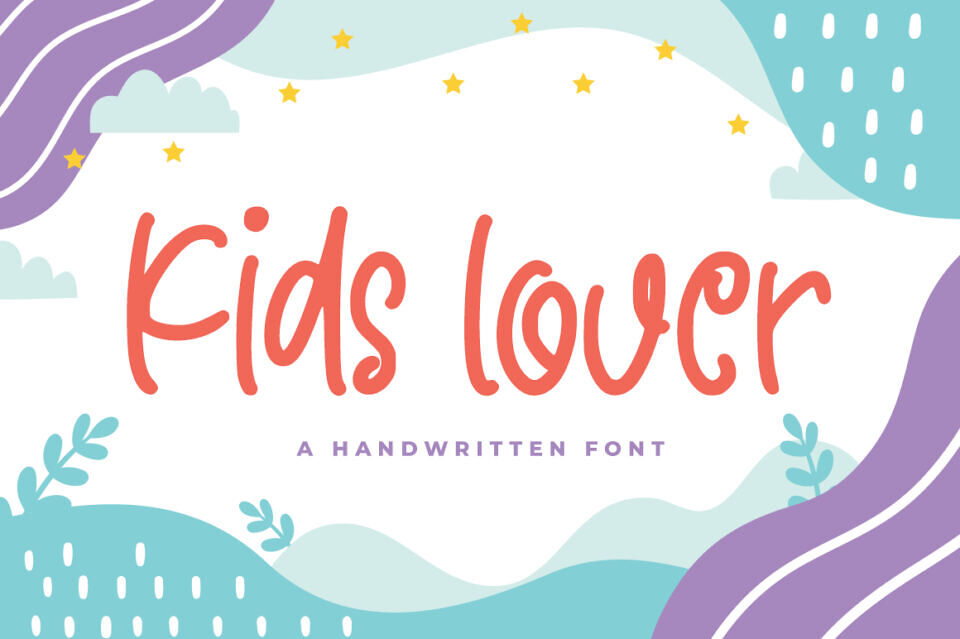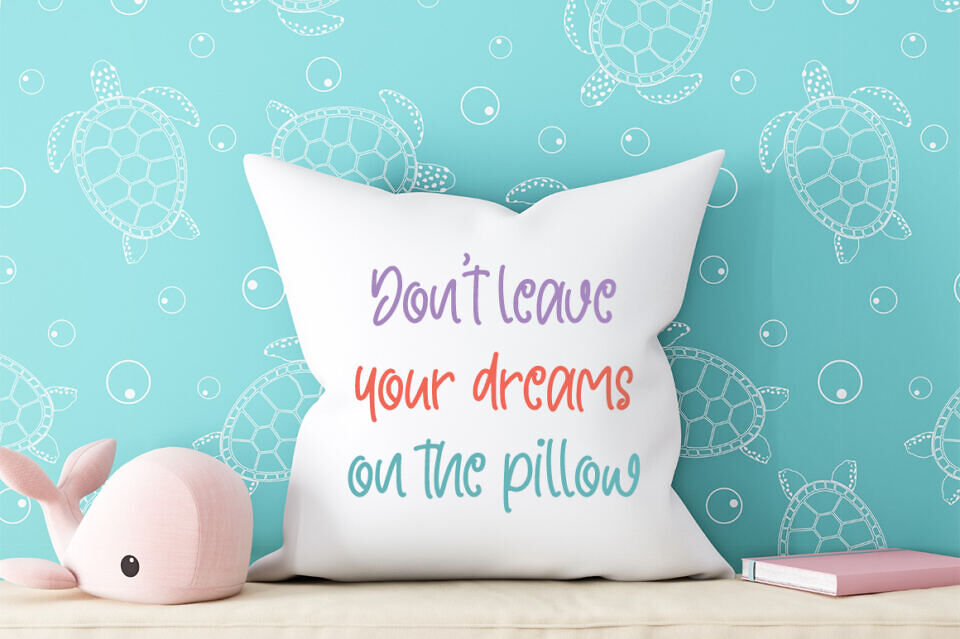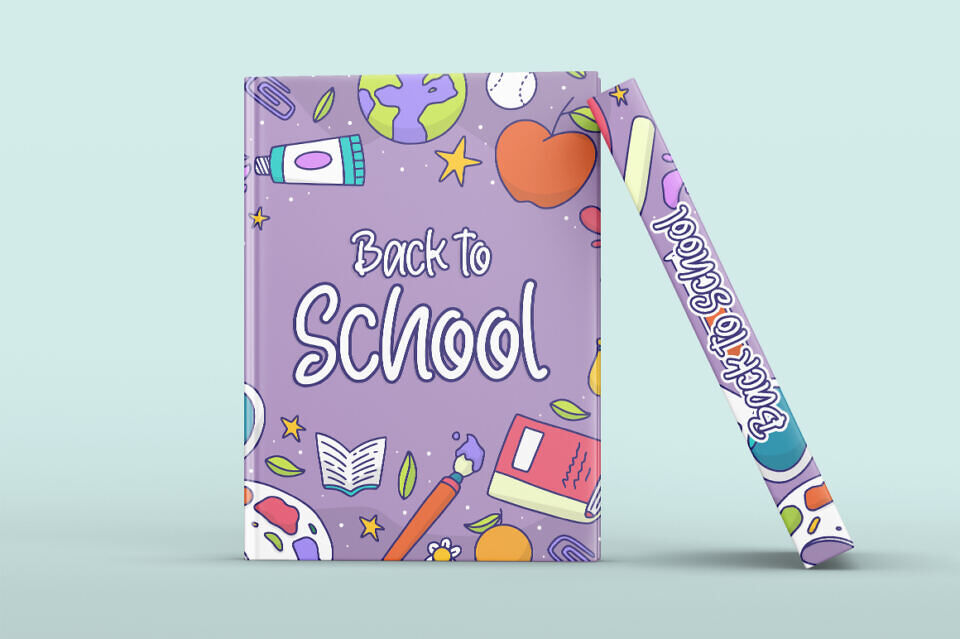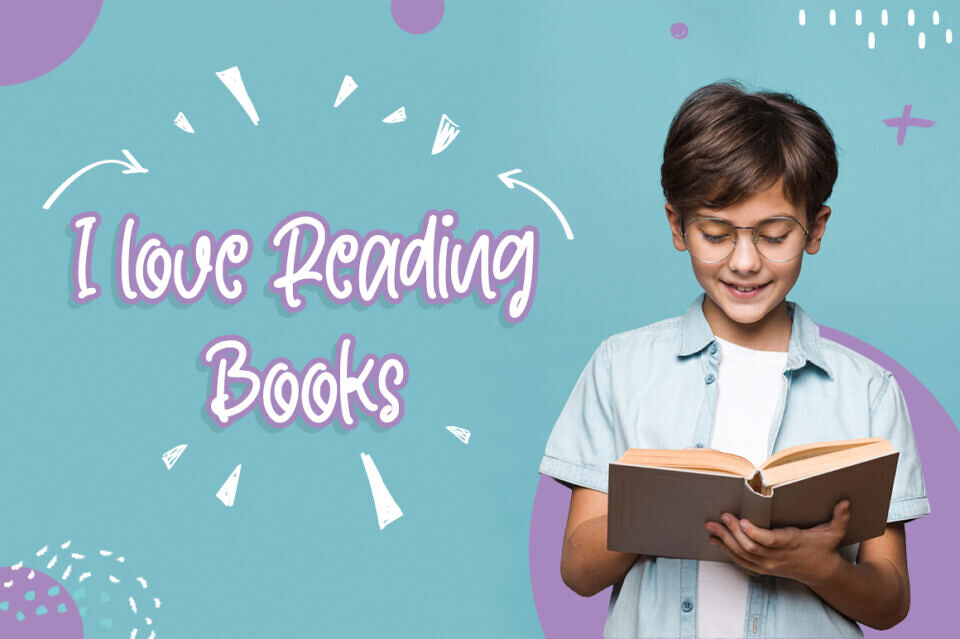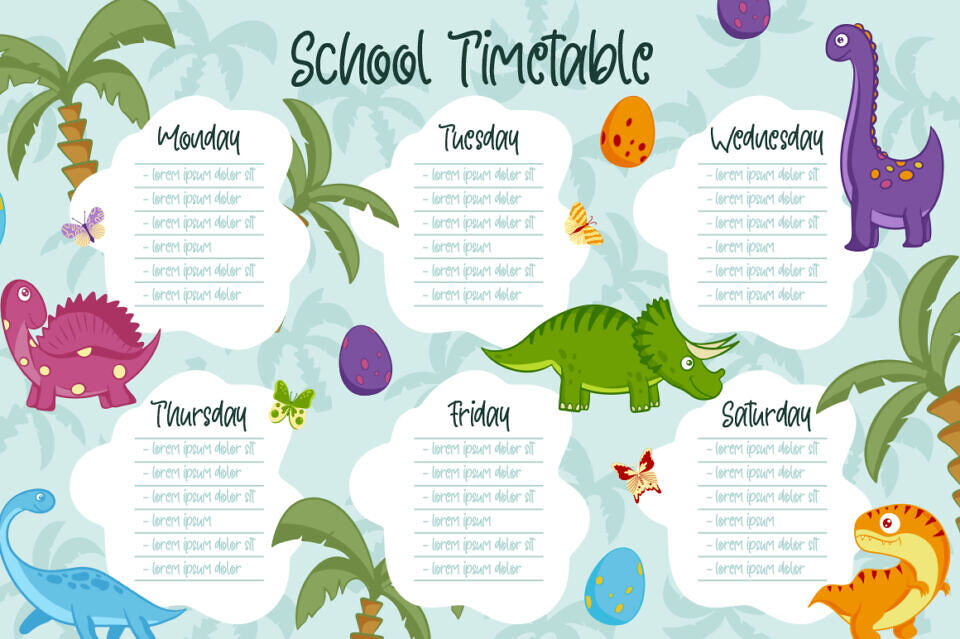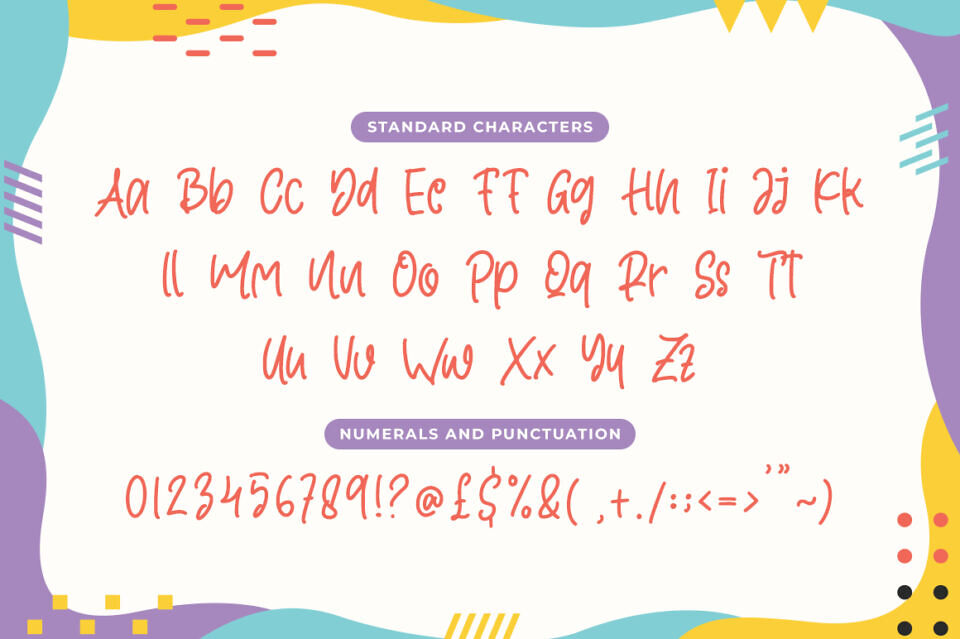
Kids Lover is a display font which embodies fun, quirkiness and authenticity. This enchanting display font will turn any creative idea into a true standout. Get inspired by its childlike playfulness, and use it to brighten up any kids and school project!